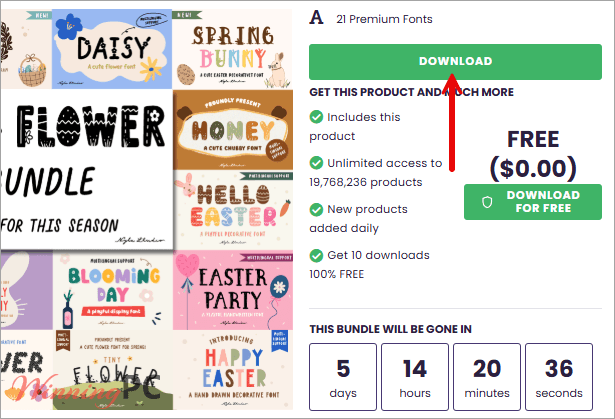
Easter and Flower Font Bundle is a free seasonal font collection that gives you 21 decorative fonts for spring projects. With a total value of $254, this bundle is a nice choice for Easter crafts, holiday invitations, floral artwork, and other cheerful design ideas.
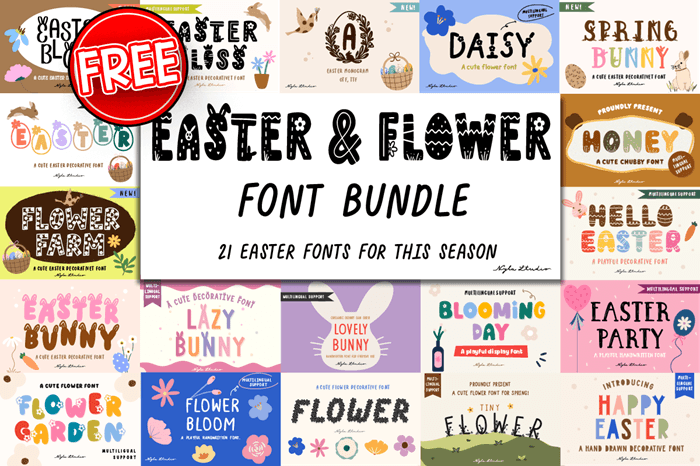
Overall, Easter and Flower Font Bundle is a fun and useful free download for anyone who wants fresh spring-style fonts without spending extra money. With 21 included designs inspired by Easter, flowers, and cute seasonal themes, it offers plenty of creative value for personal design projects.